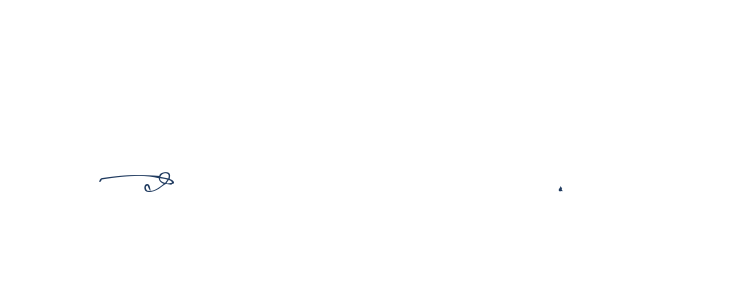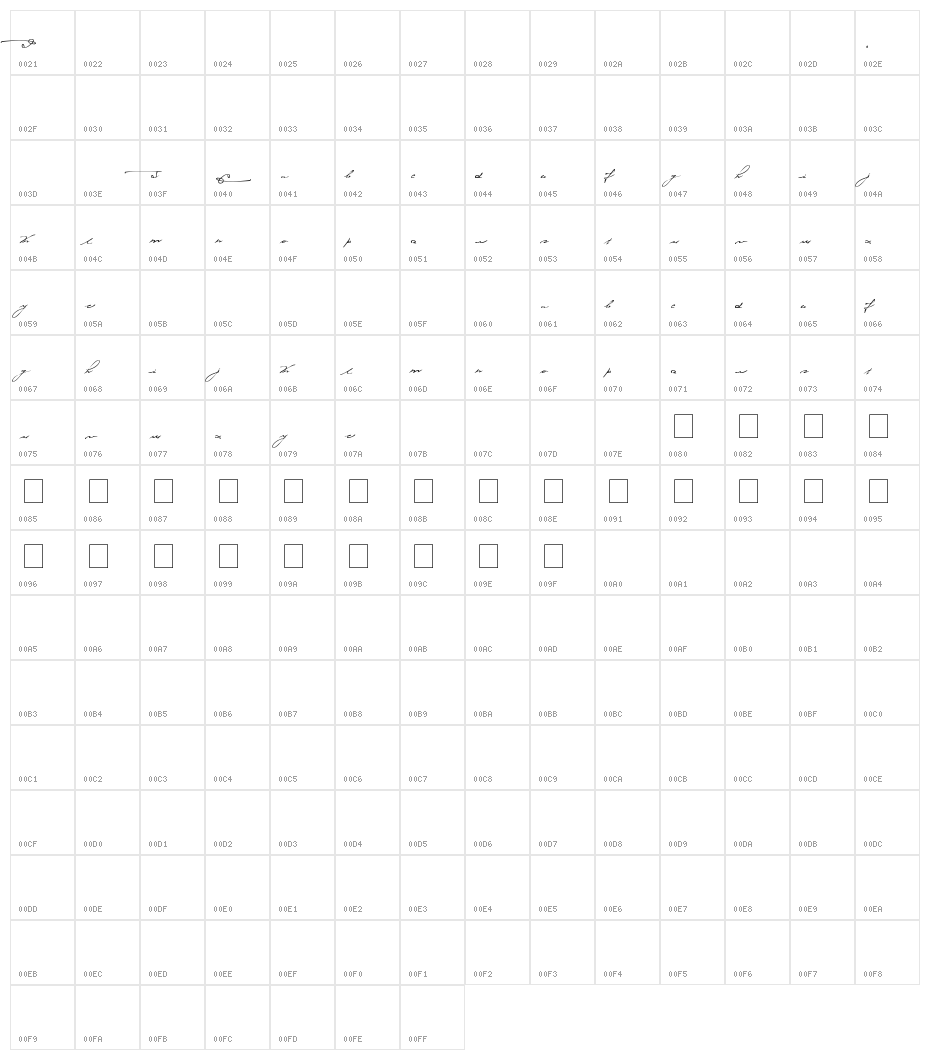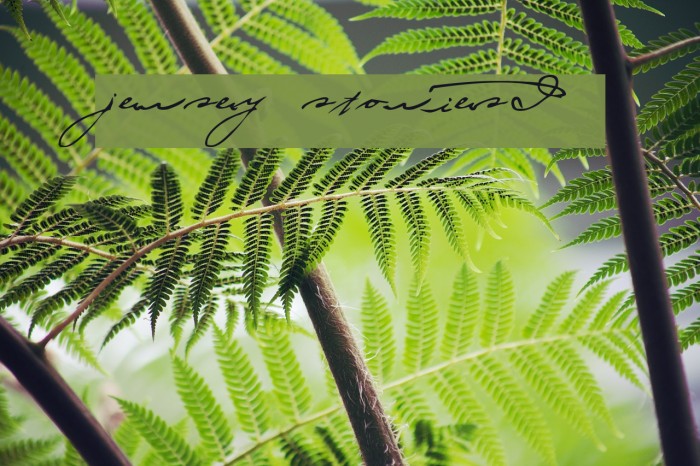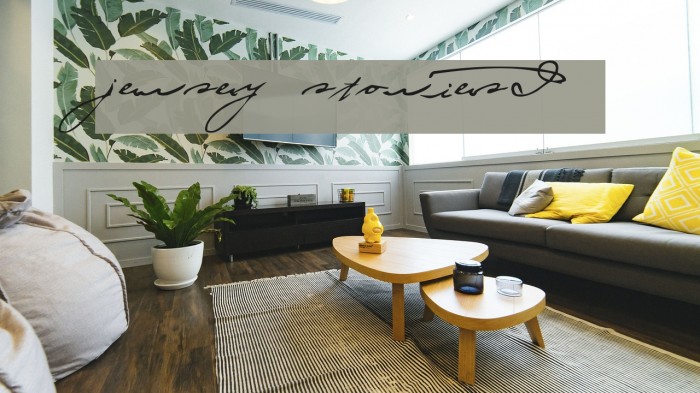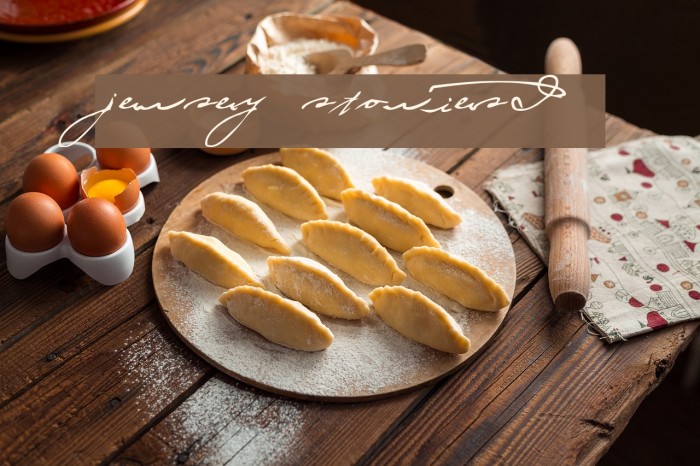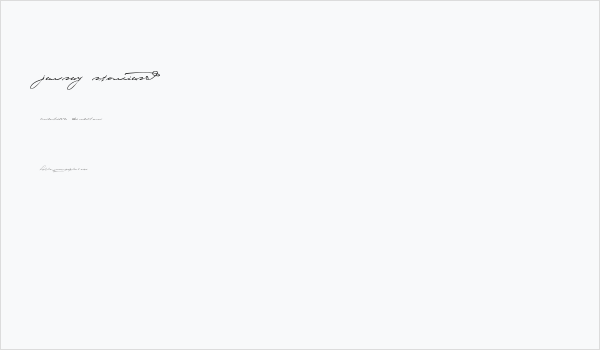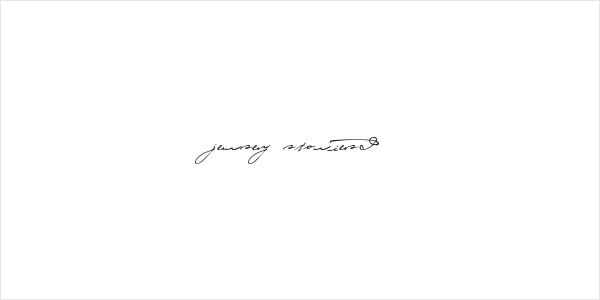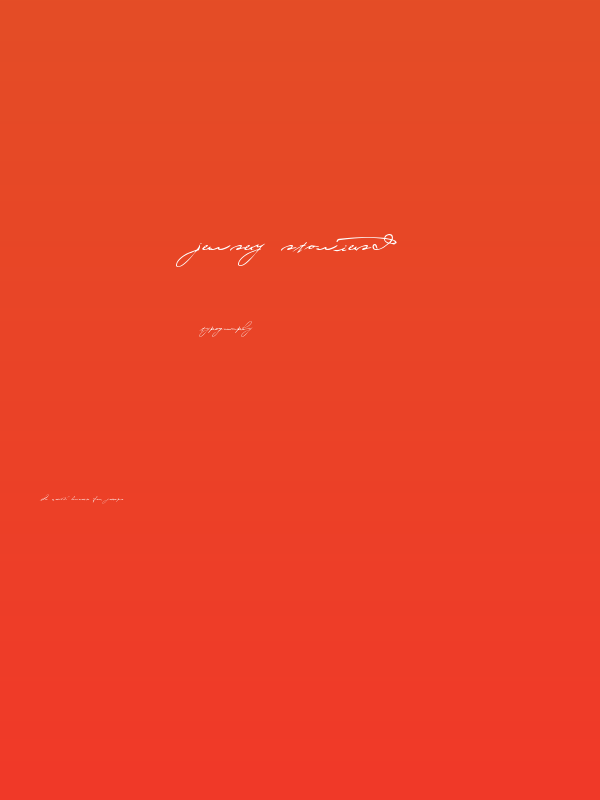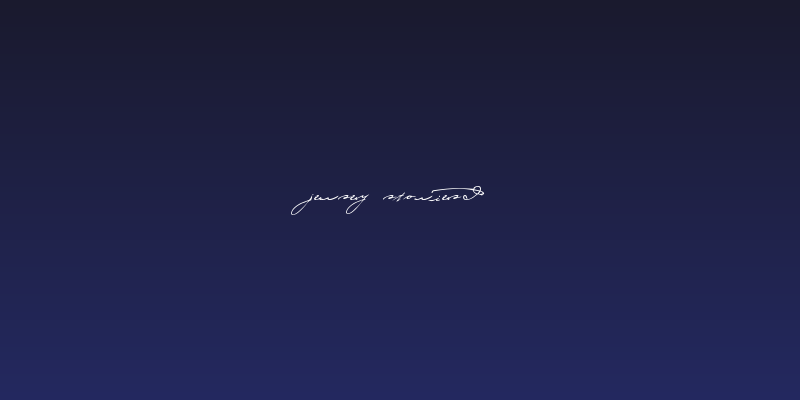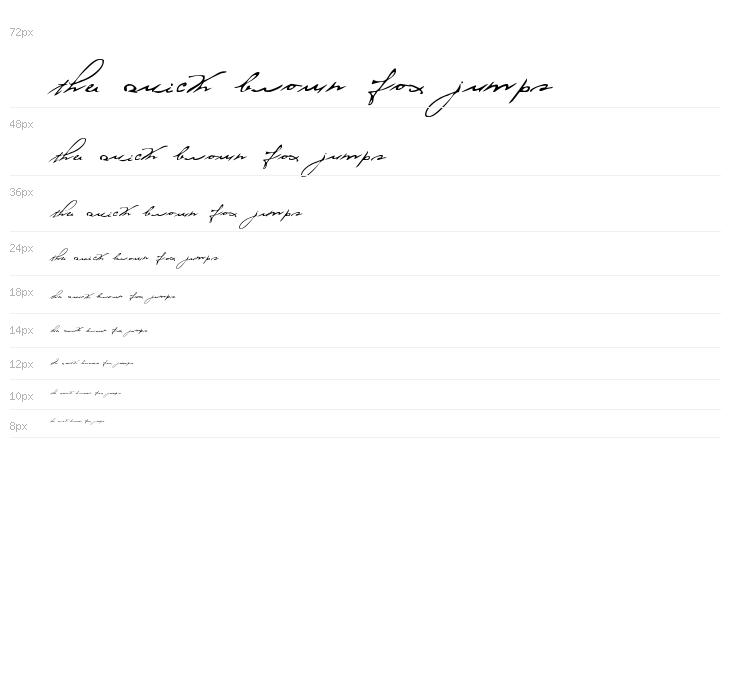
jersey stories! Font
jersey stories! Description
This font features an elegant, flowing script style that mimics the fluidity of natural handwriting. The letters are interconnected with smooth, sweeping strokes, giving it a sophisticated and artistic appearance. The uppercase letters are slightly larger and more ornate, while the lowercase letters maintain a consistent, graceful form. The font's overall aesthetic is reminiscent of classic calligraphy, with a modern twist that makes it suitable for various contemporary applications. The strokes vary in thickness, adding a dynamic and lively feel to the text. This font is perfect for projects that require a personal touch or a sense of elegance and refinement.
| Proposed Projects | Ideal for wedding invitations, personal branding, elegant logos, and artistic projects. |